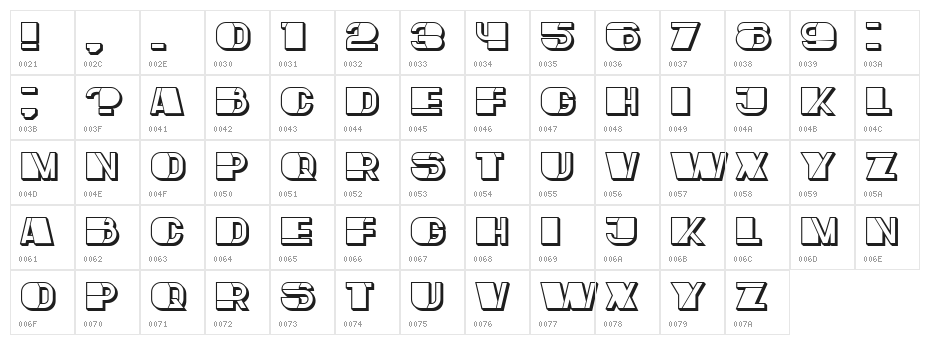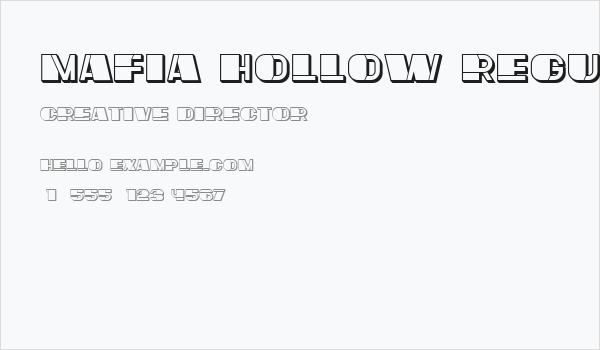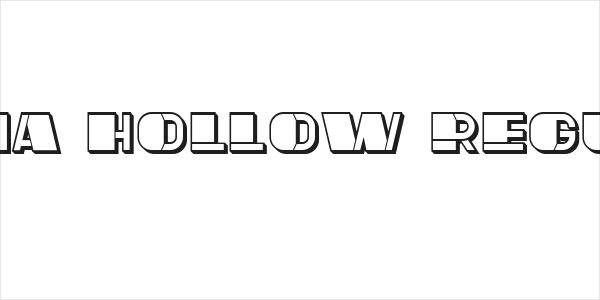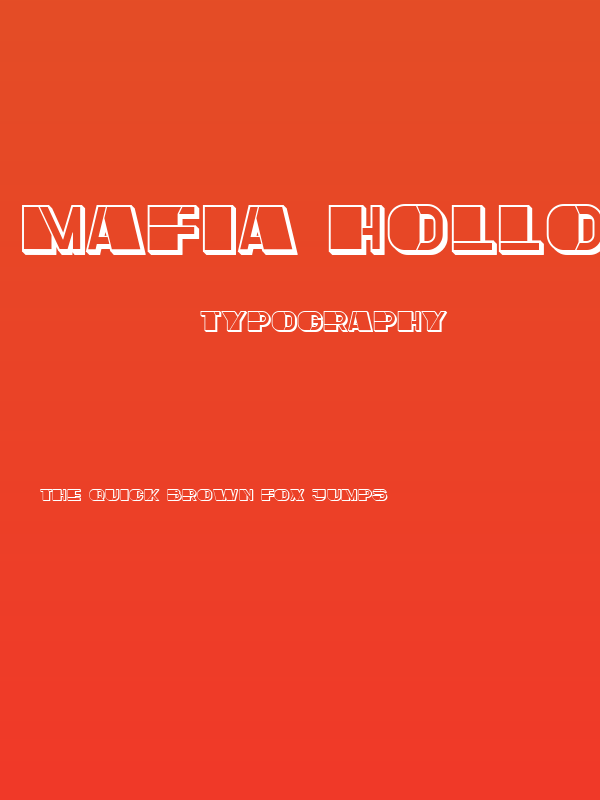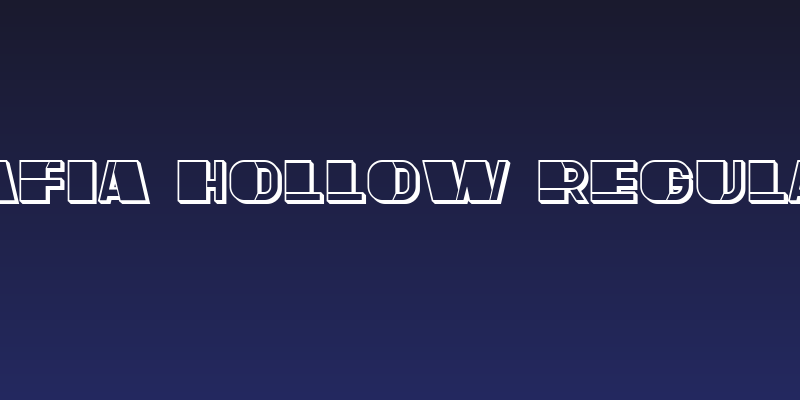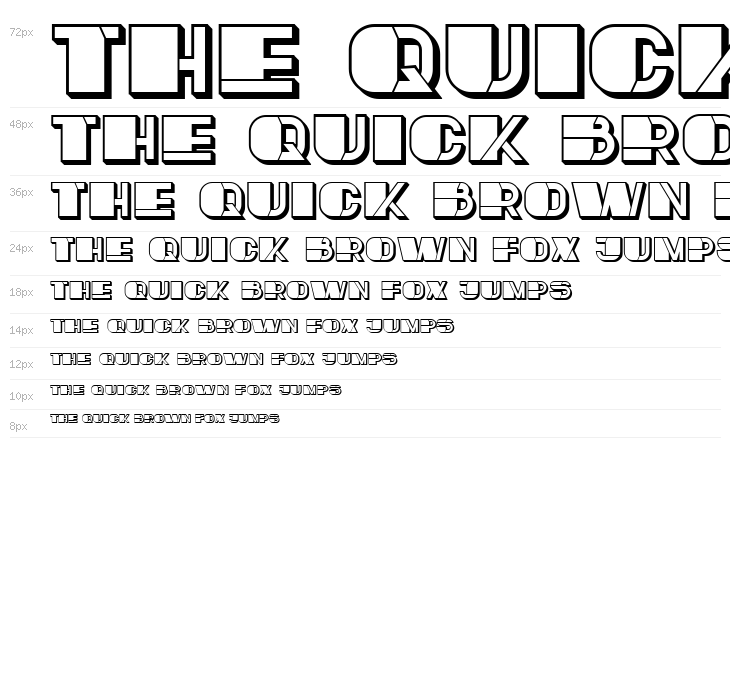
Mafia Hollow Regular Font
Mafia Hollow Regular Description
This font features a bold, hollow design with a strong geometric structure. The characters are outlined with a thick black border, creating a striking contrast against the inner white space. The style is reminiscent of retro or vintage aesthetics, with a modern twist. Each letter is crafted with precision, offering a sense of depth and dimension. The font's uppercase and lowercase letters maintain a consistent width, while numbers and special characters follow the same design principles. This font is ideal for projects that require a bold statement or a unique visual impact.
| Overall Style | Retro, Modern |
| Proposed Projects | Ideal for posters, logos, headlines, and branding materials that require a bold and distinctive look. |